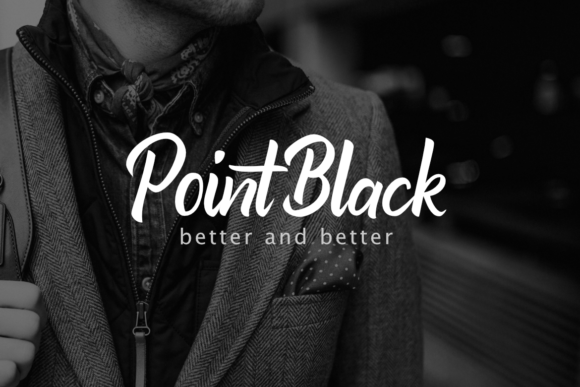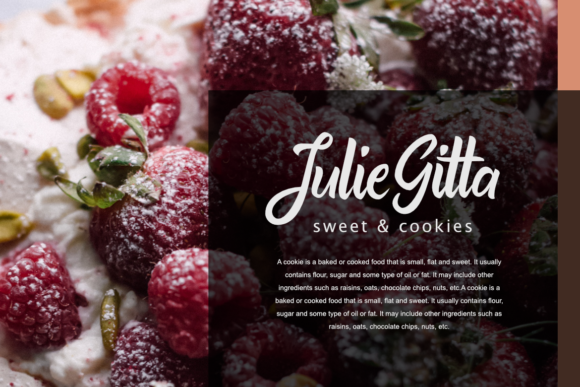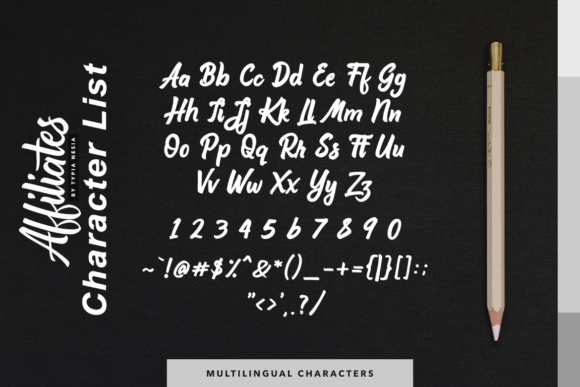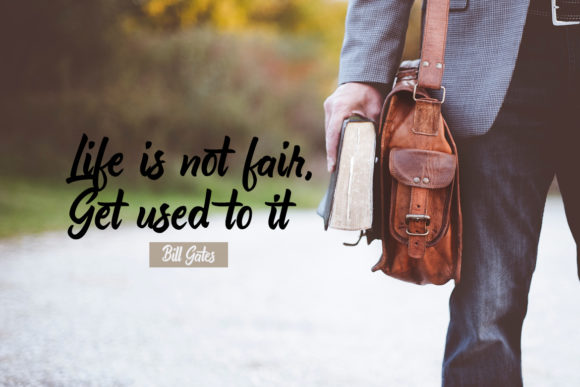
The Perfect Blend of Style and Personality: Affiliates Font
Do you remember that moment when you stumbled upon a design that perfectly captured the essence of your brand? For many creatives, this feeling is what drives them to push the boundaries of their work. As you pour your heart and soul into your next project, you might be looking for that one element that sets it apart – and that’s where the Affiliates Font comes in.
This modern and delicate handwritten font boasts a unique, personal charm that’s sure to captivate your audience. With its bold feel, the Affiliates Font is perfect for adding a touch of sophistication to your designs. Whether you’re a seasoned designer or just starting out, this versatile font is an invaluable addition to your toolkit.
Key Features of Affiliates Font
- Unique Characteristics: Affiliates Font features a modern, elegant design with clean lines and a subtle texture, making it ideal for corporate and professional applications.
Affiliates Font Review
I’ve had the chance to work with the Affiliates Font, and I must say it’s a mixed bag. ✨ One of the things that works well is its modern and sleek aesthetic. The font is perfect for creating a clean and professional look, which is ideal for corporate websites, magazines, and other publications that require a touch of sophistication.
Another thing that stands out is its versatility. Affiliates Font comes in a variety of weights and styles, making it easy to find the perfect fit for your project. Whether you’re looking for a bold statement font or a subtle background text, this font has got you covered.
- ⚠️ Limited language support: Affiliates Font seems to be optimized for Latin-based languages only, which may be a problem for projects that require support for other languages.
- ⚠️ Limited OpenType features: While the font has a modern feel, it lacks some of the advanced OpenType features that other fonts offer, such as ligatures and contextual alternates.
Overall, I’d say the Affiliates Font is a solid choice for projects that require a modern and professional look. However, it falls short in terms of language support and OpenType features. If you’re looking for a font that can handle a variety of languages and provides advanced typographic features, you may want to consider other options. But for simple projects that require a clean and sleek aesthetic, the Affiliates Font is definitely worth considering.
Here are some tips to get the most out of the Affiliates Font:
- Use it for headings and titles to add a touch of elegance.
- Experiment with different font sizes and colors to create a visually appealing design.
- Pair it with other fonts to create a unique and eye-catching typography.
The Affiliates Font is perfect for:
- Wedding
Alternatives to Affiliates Font for Designers
Open Sans is a clean and modern sans-serif font that works well for body text and titles. It’s a great choice for digital products, such as websites and mobile apps. When to use: Use Open Sans for clean and minimalistic designs where readability is key. Compare to Affiliates Font: Open Sans has a more neutral tone and is less ornate than Affiliates Font, making it a better choice for modern and professional designs.